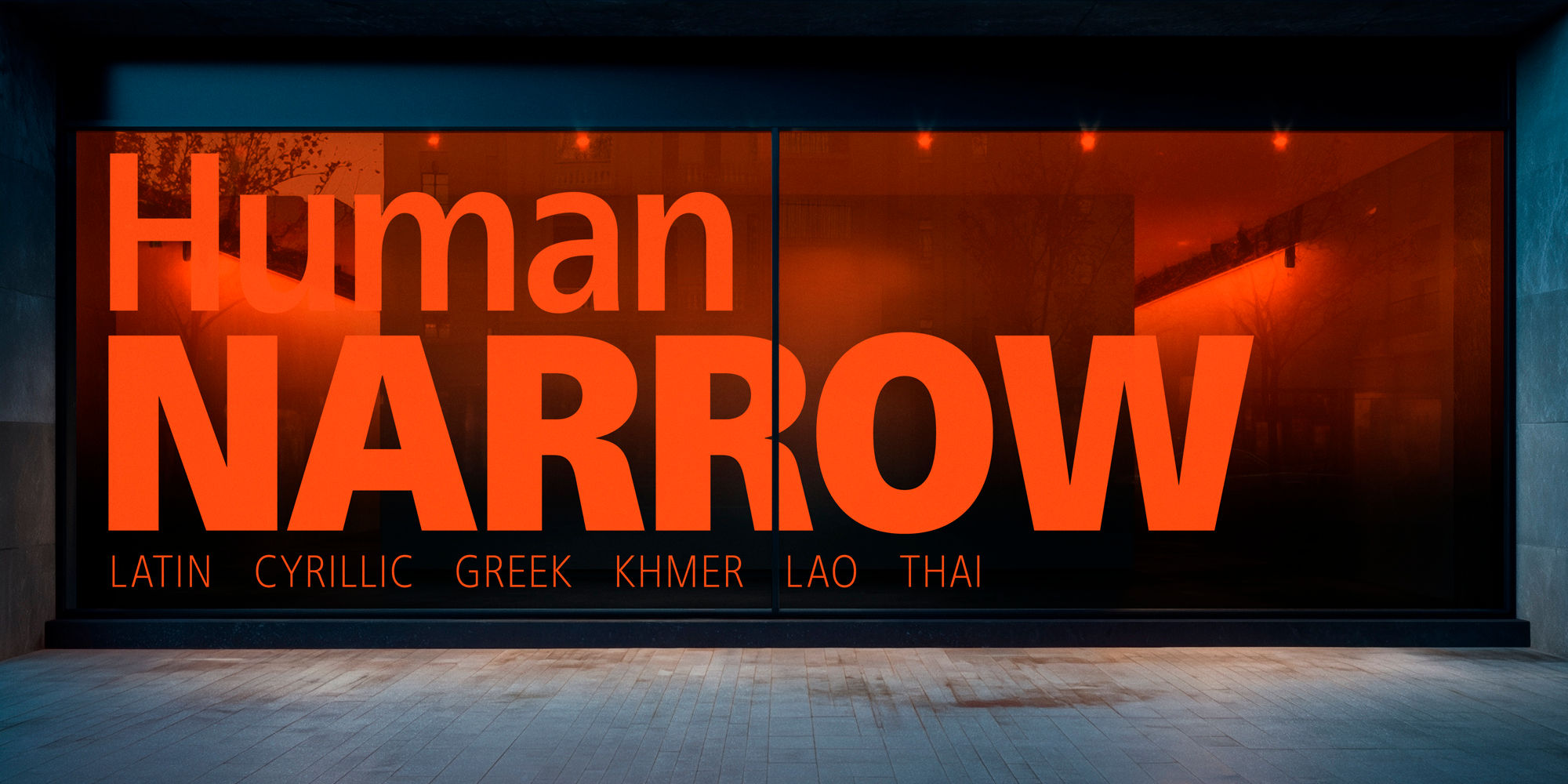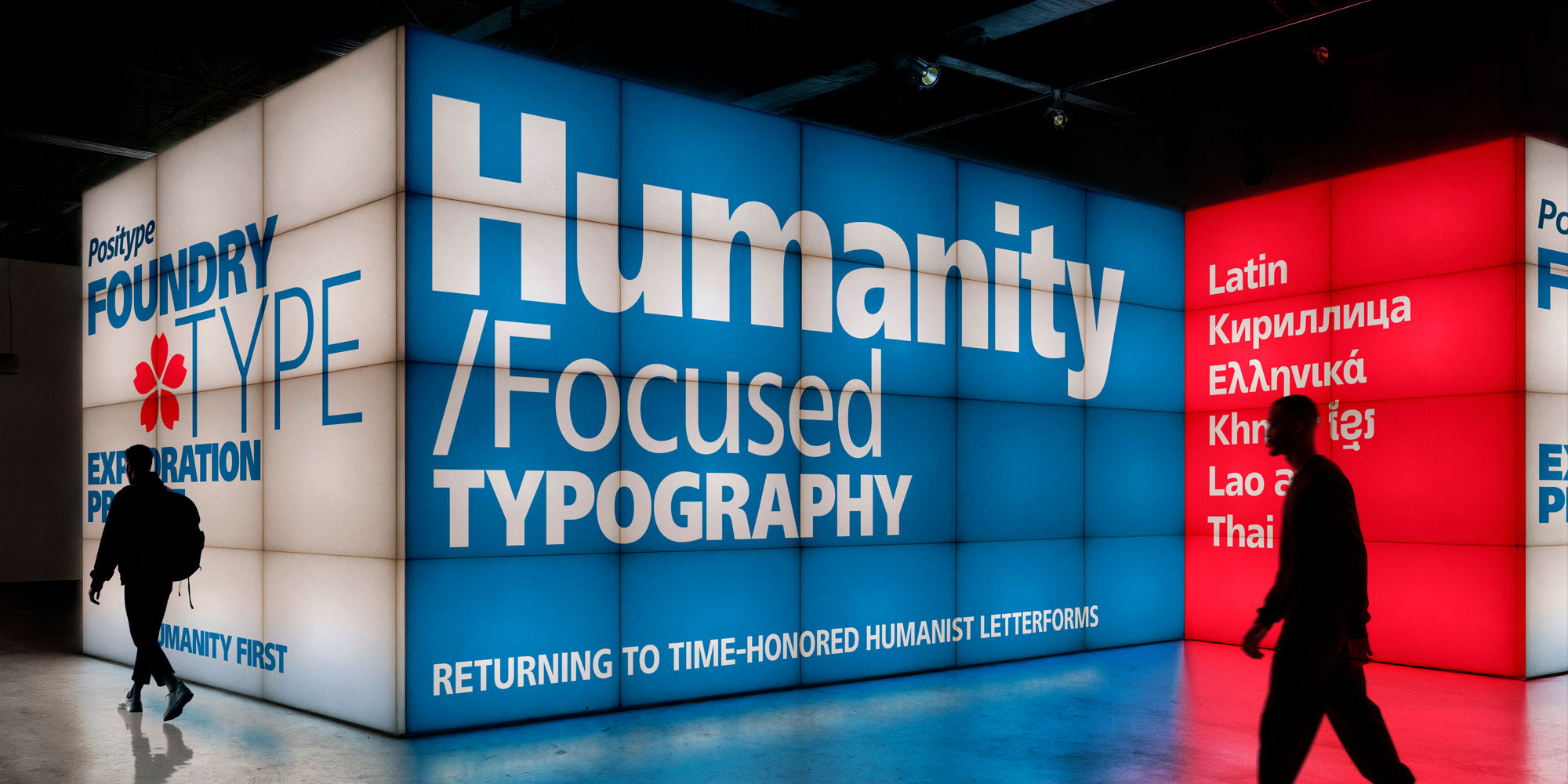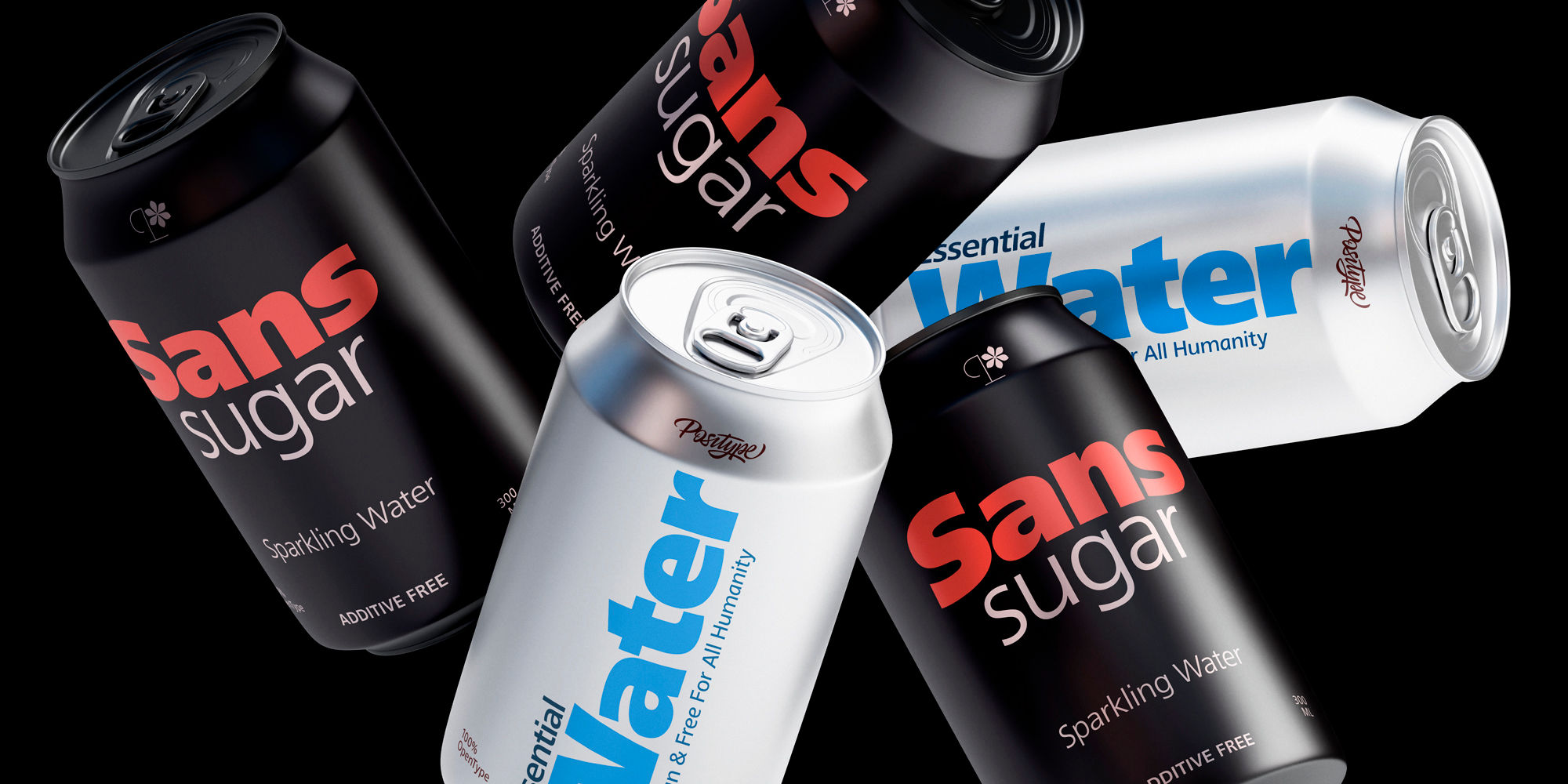
Human Narrow ລາວ
Human Sans is a humanist sans serif years in the making, built from the ground up to serve as a true typographic workhorse. The typeface began as an evolution of an earlier Positype design but was drawn and redrawn, crafted and recrafted until every decision was resolved on its own terms.
Three widths are provided: Standard, Narrow, and Condensed. The Narrow width occupies the practical middle ground where condensed is too tight and standard carries too much horizontal presence. Eight weights from Light to Ultra with matching italics span each width.
Writing system support covers Latin, Cyrillic, Greek, Japanese, Khmer, Lao, and Thai, with all writing systems besides Japanese available in all three widths. The Japanese extension is a fully realized offering: complete JIS X 0208 Level 1 and Level 2 coverage at 6,707 kanji, full hiragana and katakana, halfwidth katakana, vertical typesetting with vert, vrt2, and vkna features, halt and palt for automatic punctuation spacing, proportional kana widths, and contextual half-width spacing. This is not a limited kanji subset or a Latin family with Japanese characters appended to it. It is a complete Japanese typeface built to the same standard that Japanese typographers expect from domestic foundries. The Khmer extension was built with a complete OpenType shaping pipeline. Human Sans is designed to work across languages, not as an afterthought but as a foundational principle.